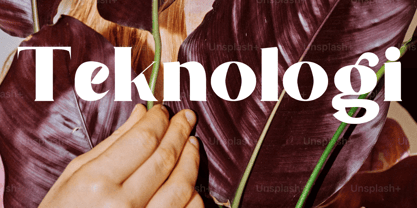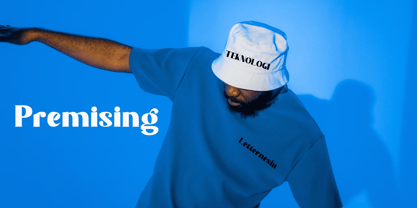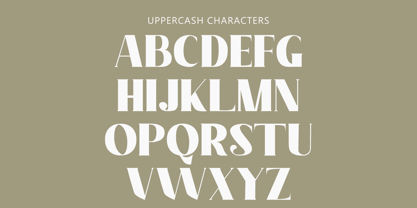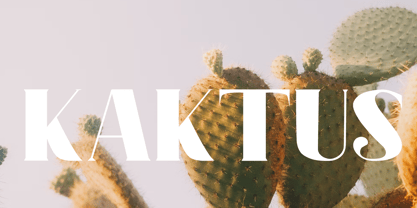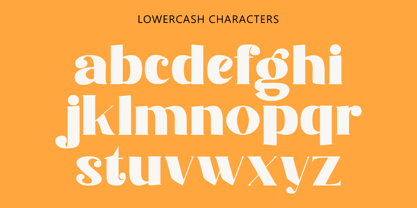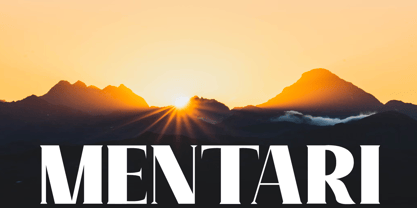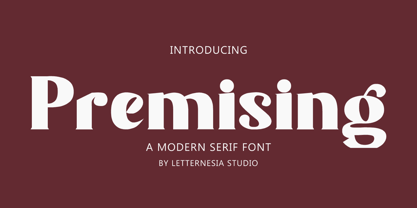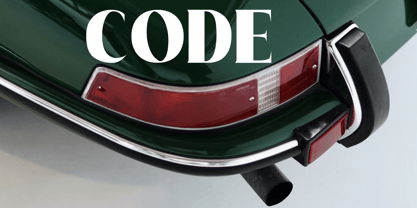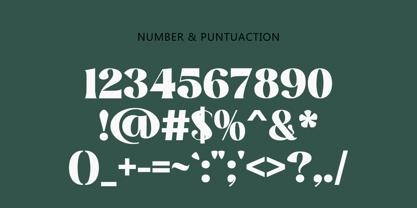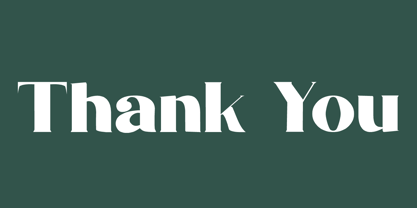
Premising
by Letternesia studio
The Premising Font Family was designed by Ta Siyo and published by Letternesia studio. Premising contains 1 styles.
Permising is a modern display typeface that blends elegance with bold character. Crafted with smooth curves and sharp edges, this font carries a confident yet approachable personality—making it ideal for branding, editorial design, logos, and high-impact titles.
With its unique letterforms and well-balanced spacing, Permising offers a fresh visual experience that stands out in both digital and print media. Whether used in minimalist layouts or expressive compositions, this font brings a sense of creativity and clarity to your message.
Designers: Ta Siyo
Publisher: Letternesia studio
Foundry: Letternesia studio
Design Owner: Letternesia studio
About Letternesia studio
Letternesia is a company engaged in the creation and development of fonts, focusing on unique designs that highlight the distinct characteristics of Indonesia. Established with the goal of promoting and introducing Indonesian culture through typography, Letternesia offers a variety of fonts inspired by the beauty of the archipelago. Each font produced by Letternesia is crafted with high detail and precision, making it suitable for various needs, from graphic design and branding to other creative projects.